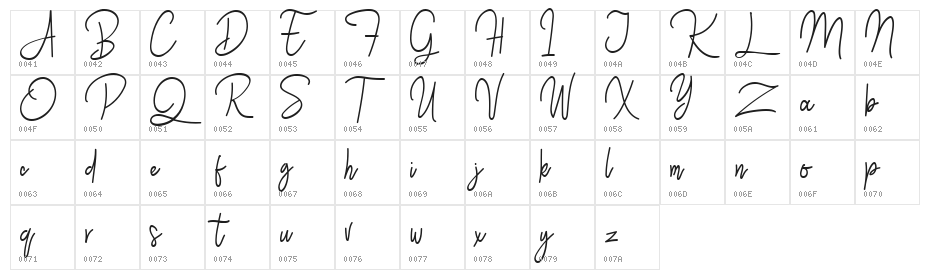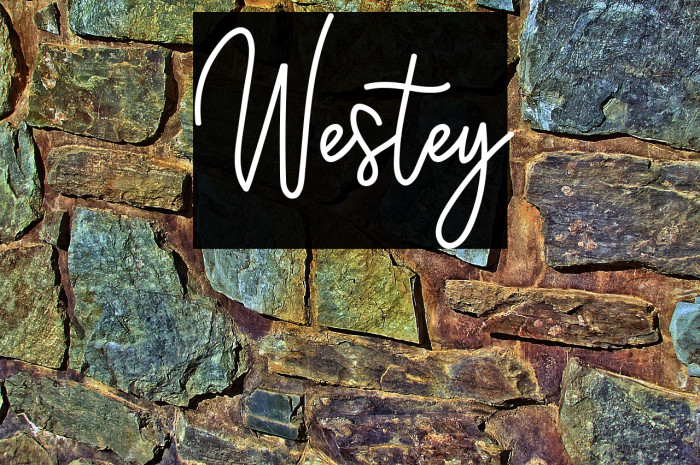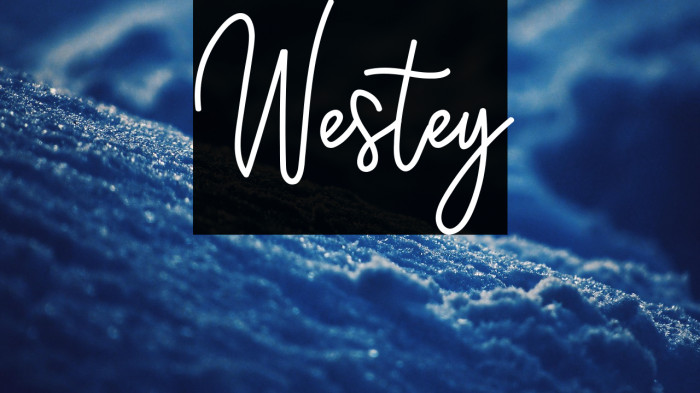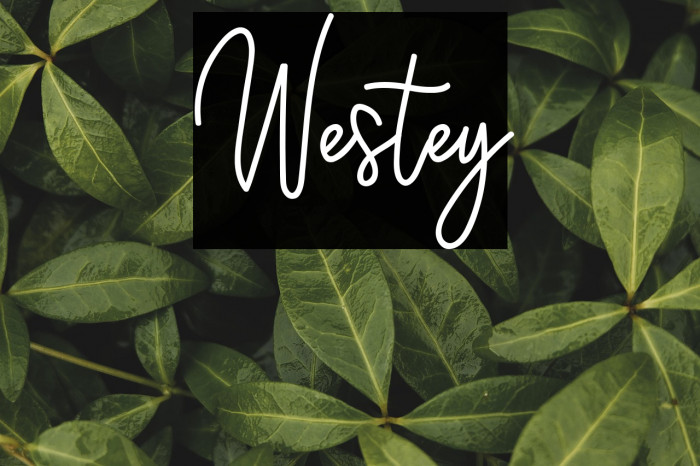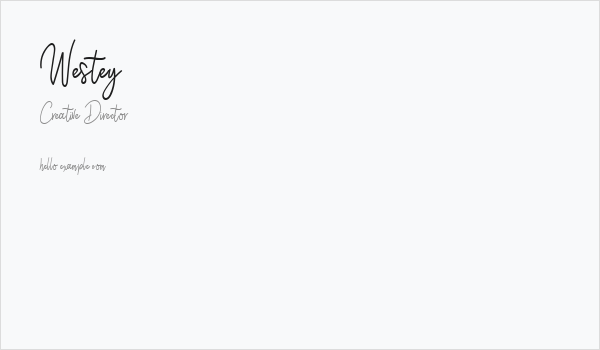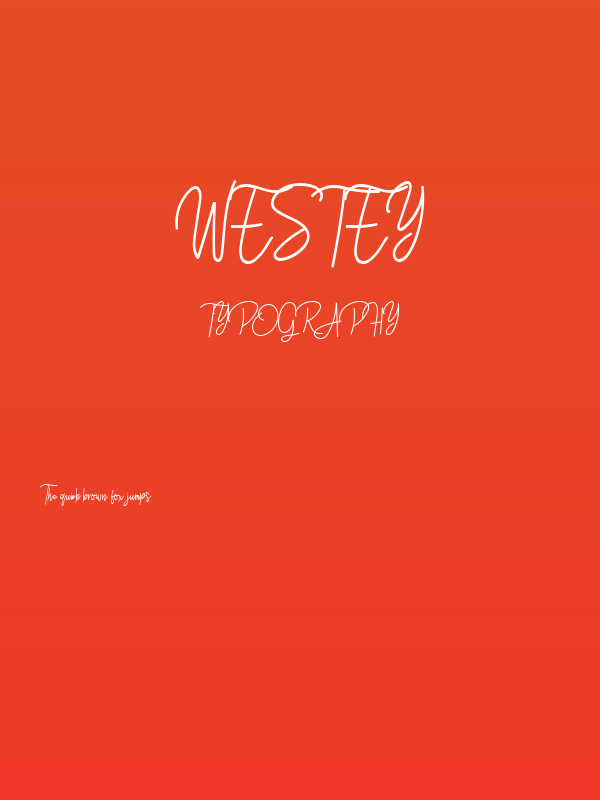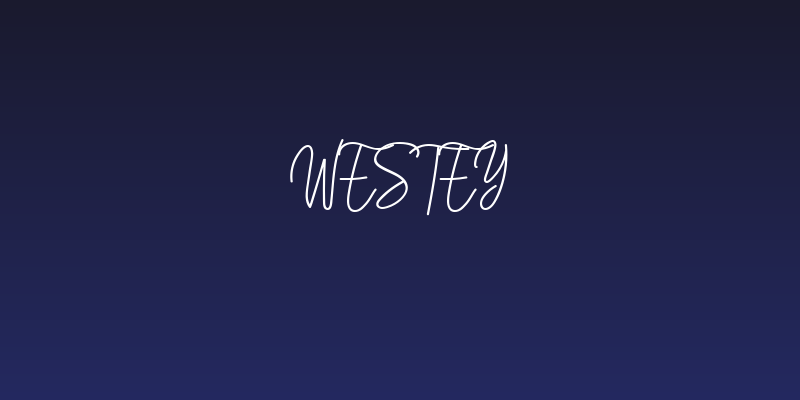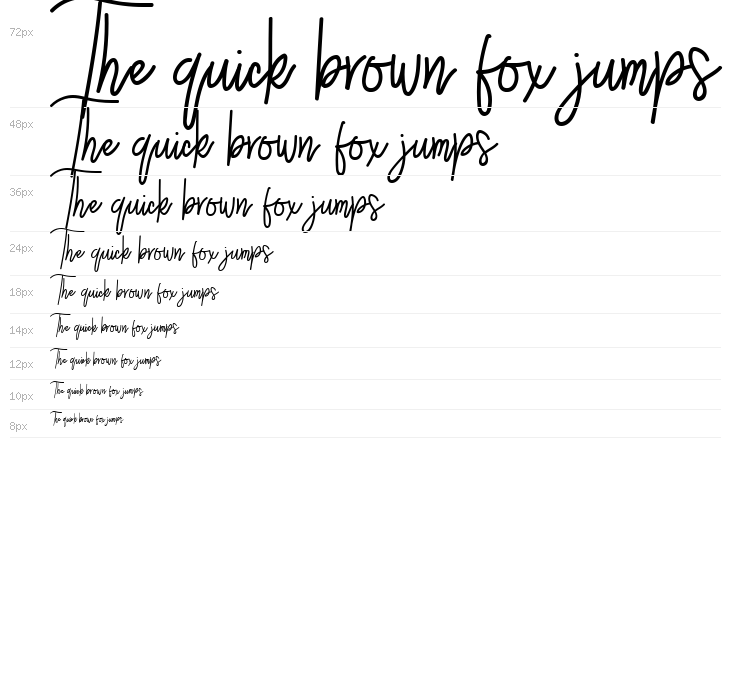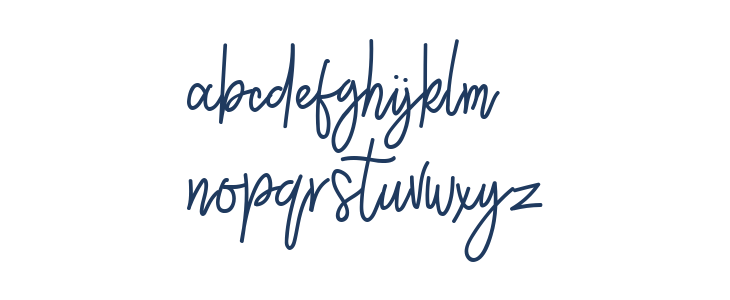
Westey Font
Westey Description
This font features a flowing, cursive style with elegant loops and swirls, giving it a handwritten appearance. The uppercase letters are tall and slender, with graceful curves that create a sense of movement and fluidity. The lowercase letters maintain a consistent style, with some characters featuring distinctive loops and flourishes that add a touch of sophistication. The overall design is both artistic and legible, making it suitable for creative projects that require a personal touch. The font's unique character is further enhanced by its playful yet refined aesthetic, making it versatile for various design applications.